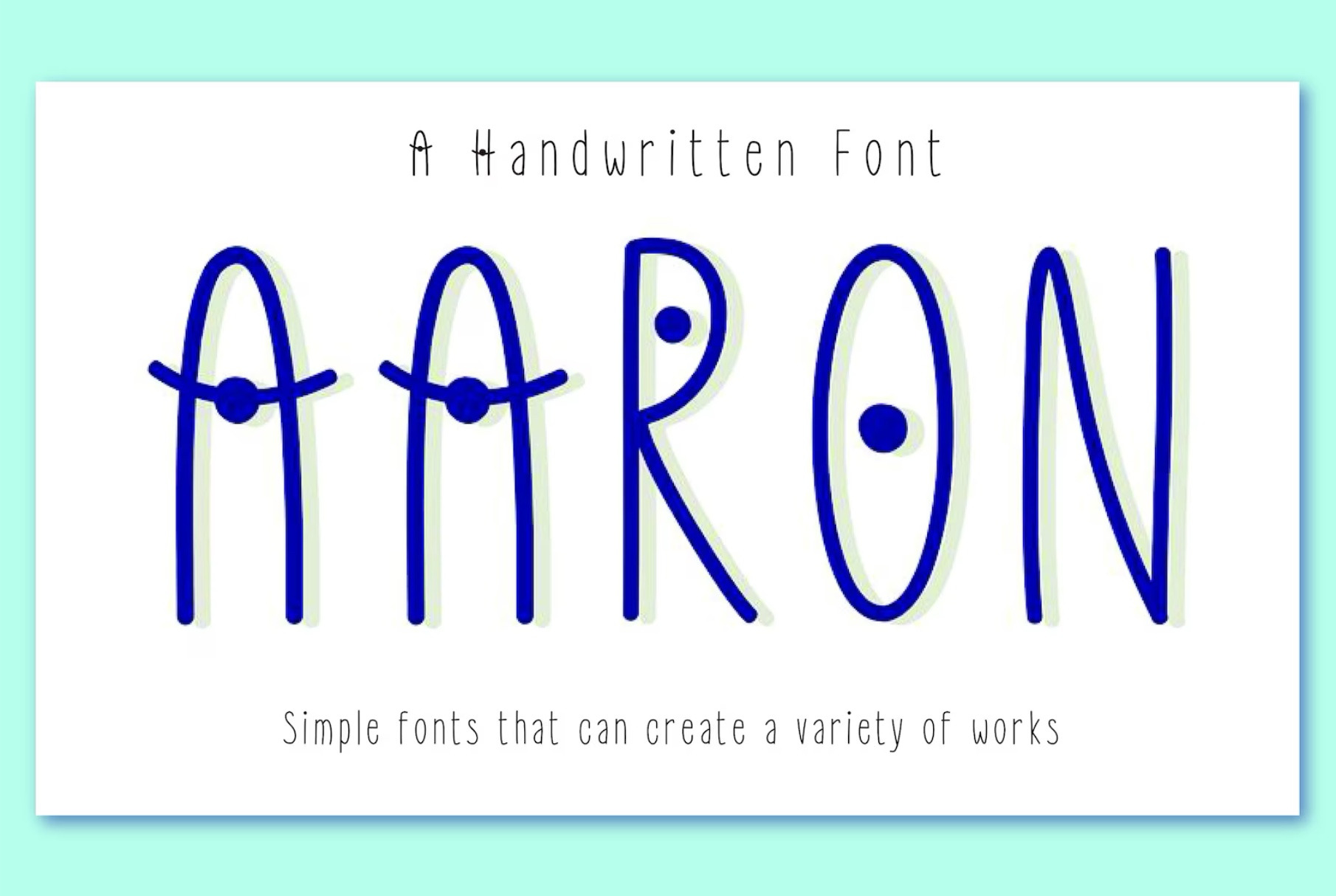
AARON FONT
THE SIMPLE FONT THAT CAN CREATE A VARIETY OF WORKS
Aaron is a thin and tall handwritten font. It can easily be matched to an incredibly large set of projects, so add it to your creative ideas and notice how it makes them stand out!
This font a perfect for many project : greeting cards, wedding invitation, posters, magazines, book covers, stationery, menu, coffee shop, bakery shop and more.